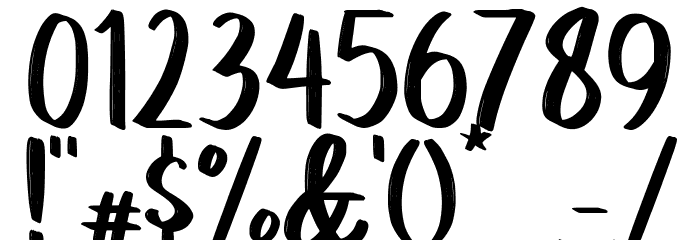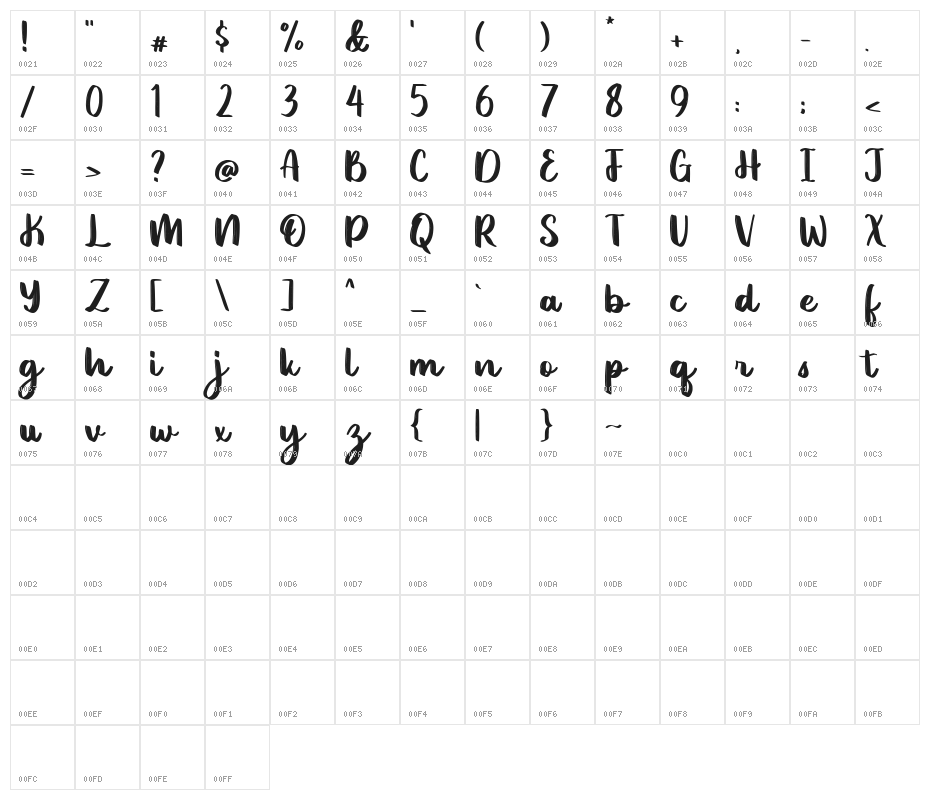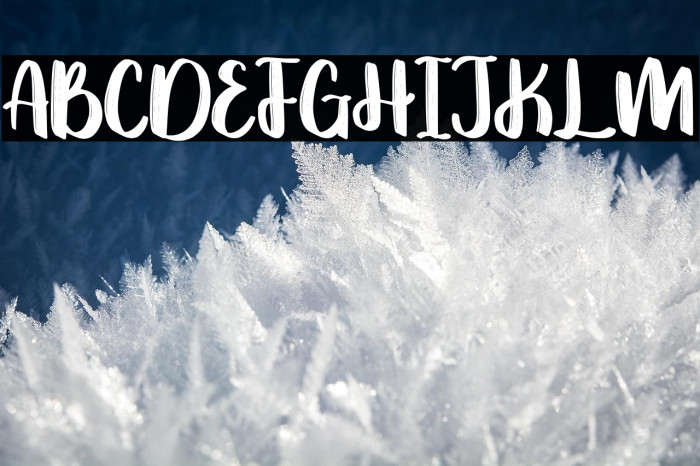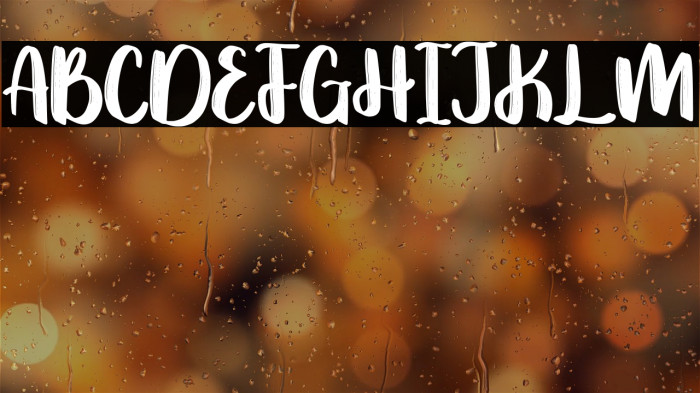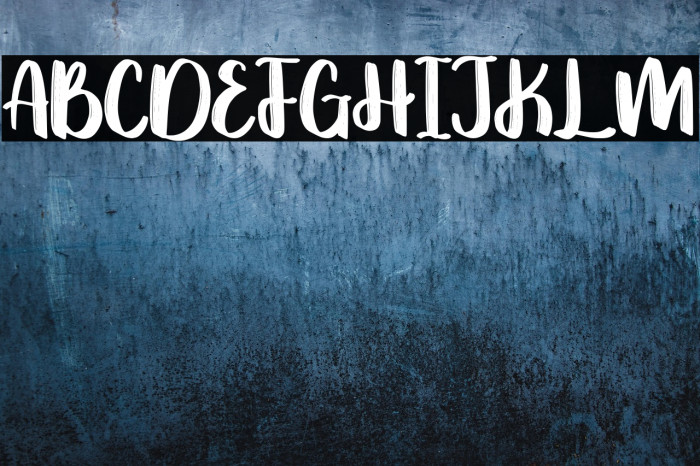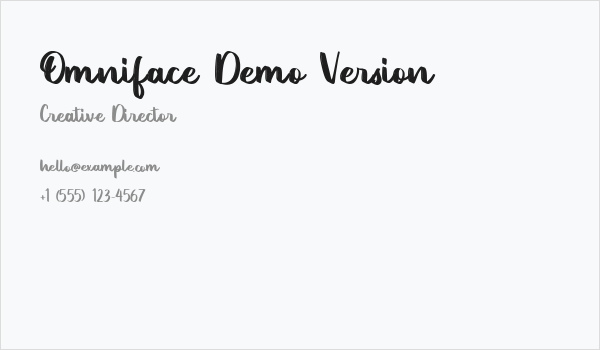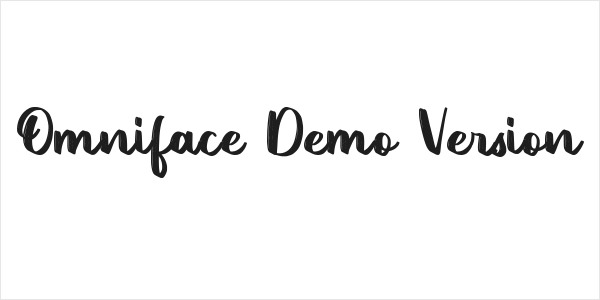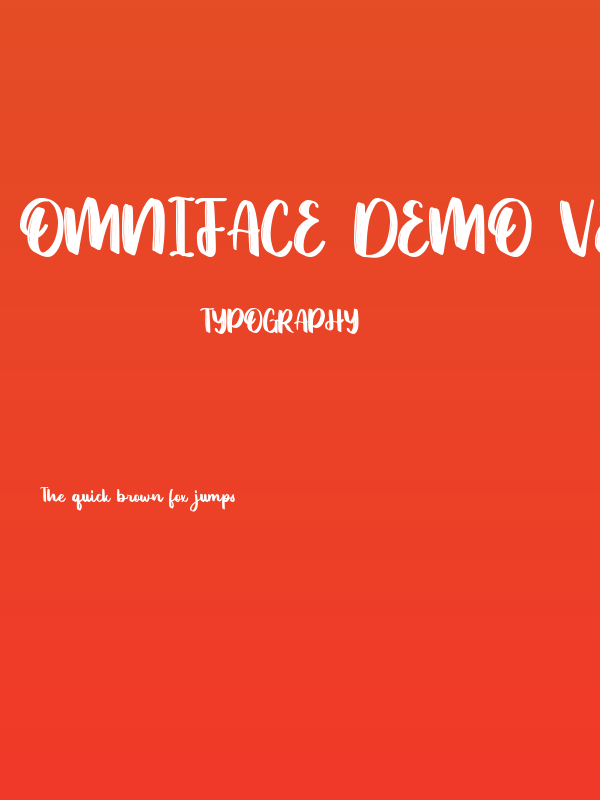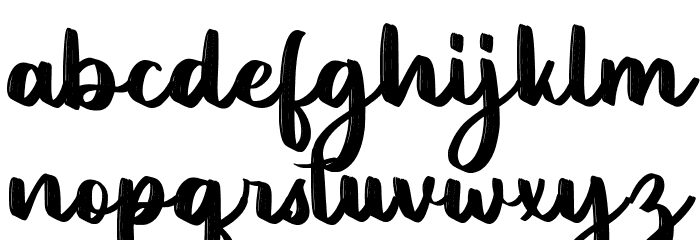
Omniface Demo Version Font
Omniface Demo Version Description
This font features a bold and expressive handwritten style, characterized by thick, brush-like strokes that convey a sense of energy and creativity. The uppercase letters are bold and slightly condensed, while the lowercase letters maintain a consistent flow with a playful touch. The numbers and special characters are equally dynamic, adding to the font's versatility. The overall appearance is casual yet impactful, making it suitable for projects that require a personal and artistic flair. The font's unique style is perfect for capturing attention and adding a human touch to any design.
| Proposed Projects | Ideal for greeting cards, posters, branding, social media graphics, and creative invitations. |